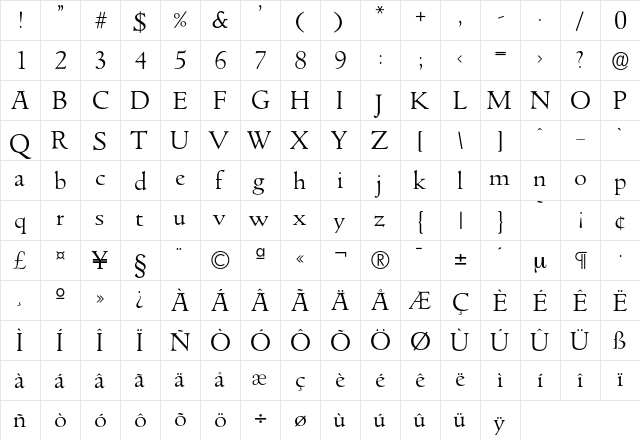
Goudita-Light Regular
Design Context for Goudita-Light Typeface
Goudita-Light offers clean, dependable letterforms without strong stylistic allegiance, making it a practical choice for designers who need flexibility. Its slender proportions lend an understated elegance to any composition.